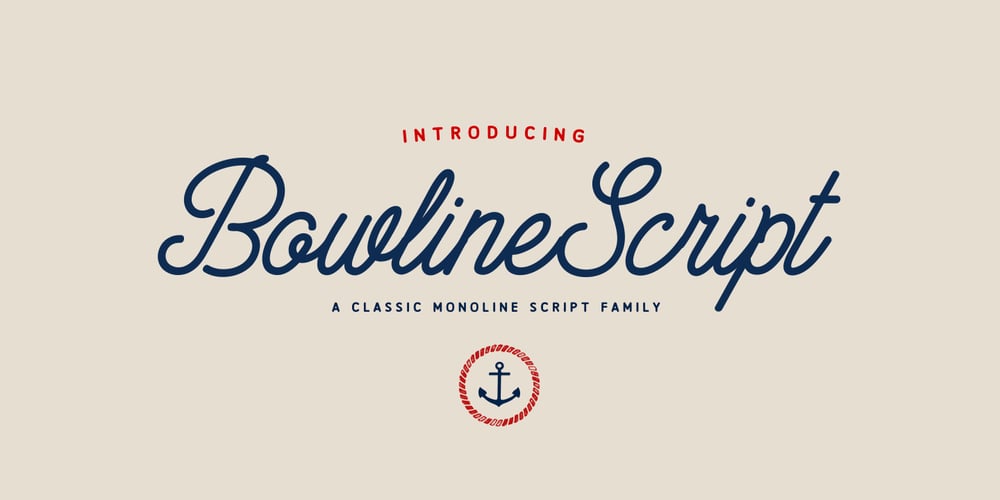
Bowline Script Font Family was designed by Andrew Footit and published by Andrew Footit. Bowline Script contains 3 styles and family package options. Bowline Script is a classic monoline cursive script font. This family of 3 fonts has 2 weight options and a Vintage version. Bowline Script is inspired by classic cursive handwriting, the great thing about Bowline Script is its versatile use, it can be used in a retro way or a more modern, clean approach. Anchor script was created with the designer in mind by including some useful stylistic alternates and some swash elements that compliment the font. Use Bowline Script in a range of items like packaging, posters, logotypes, branding, book covers, magazines, wedding stationery and much more. You have the options to keep it clean and modern or take it back to a vintage era.